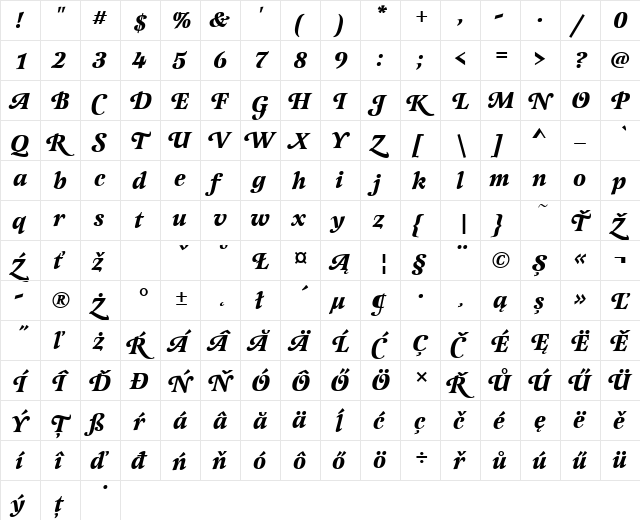
LatienneSwaTEE Bold Italic
Design Context for LatienneSwaTEE Typeface
LatienneSwaTEE is a composed and adaptable typeface that performs quietly and consistently across a wide range of design contexts. The dynamic lean of this cut emphasises speed and emphasis in any layout. The heavy weight commands attention and anchors typographic hierarchies.